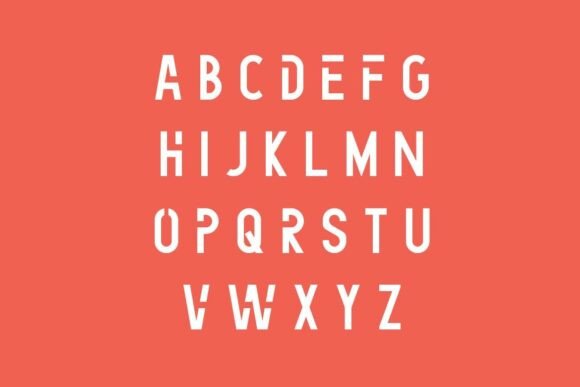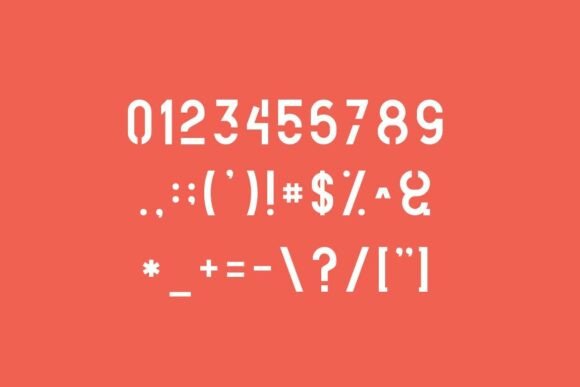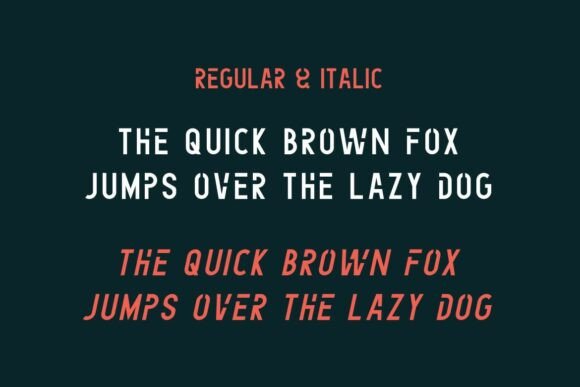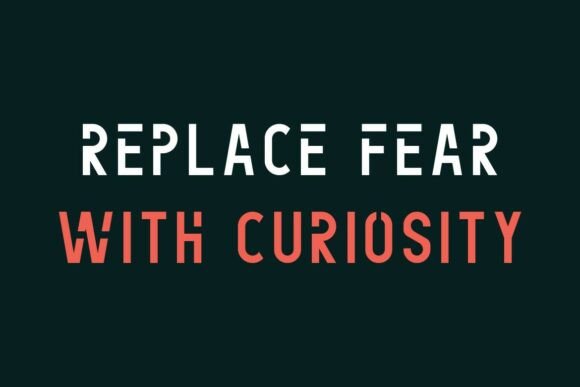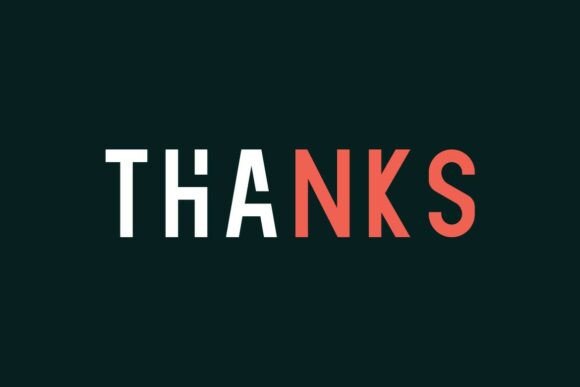
Bashva Font: The Ultimate Sans Serif for Clarity and Purpose
In the world of typography, a font can make or break the visual identity of a brand, product, or project. For designers and crafters seeking a strong and balanced sans serif font, Bashva is an exceptional choice. Designed to communicate with clarity and purpose, Bashva is perfect for a wide range of applications, from branding and editorial layouts to signage, presentations, packaging, and digital interfaces.
Clean Lines, Geometric Precision, and Neutral Tone
Bashva’s design is characterized by clean lines, geometric precision, and a neutral tone. This harmonious combination creates a font that is both aesthetically pleasing and highly legible. The clean lines and geometric shapes ensure that Bashva is free from unnecessary embellishments, making it a versatile font suitable for various design contexts.
Key Features of Bashva Font
- Strong and Balanced Design: Bashva’s robust yet balanced design makes it an excellent choice for headlines, body text, and captions.
- High Legibility: The font’s clear and precise lines ensure that text remains easily readable, even at smaller sizes.
- Neutral Tone: Bashva’s neutral tone allows it to adapt seamlessly to various design schemes and color palettes.
- Geometric Precision: The font’s geometric shapes and lines create a sense of modernity and sophistication.
Use Cases for Bashva Font
Bashva’s versatility makes it an excellent choice for a wide range of design applications, including:
- Branding: Establish a strong visual identity with Bashva’s bold and balanced design.
- Editorial Layouts: Use Bashva for body text, headlines, and captions to create a cohesive and professional look.
- Signage: Bashva’s high legibility and clean design make it perfect for signage and wayfinding systems.
- Presentations: Add a touch of sophistication to your presentations with Bashva’s geometric precision and neutral tone.
- Packaging: Use Bashva to create eye-catching packaging designs that communicate with clarity and purpose.
- Digital Interfaces: Bashva is ideal for digital interfaces, such as websites, apps, and software, where a smart and professional aesthetic is crucial.
Bashva offers numerous benefits for designers and crafters, including:
- Ease of Use: Bashva’s clean design and high legibility make it easy to use in various design contexts.
- Flexibility: The font’s versatility allows it to adapt to different design schemes, color palettes, and typography styles.
- Professional Aesthetic: Bashva’s geometric precision and neutral tone create a professional and sophisticated look that elevates any design.
In conclusion, Bashva is an exceptional sans serif font designed to communicate with clarity and purpose. Its clean lines, geometric precision, and neutral tone make it perfect for a wide range of design applications. Whether you’re a designer or crafter, Bashva is an excellent choice for branding, editorial layouts, signage, presentations, packaging, and digital interfaces. With its ease of use, flexibility, and professional aesthetic, Bashva is sure to become a valuable addition to your typography toolkit.